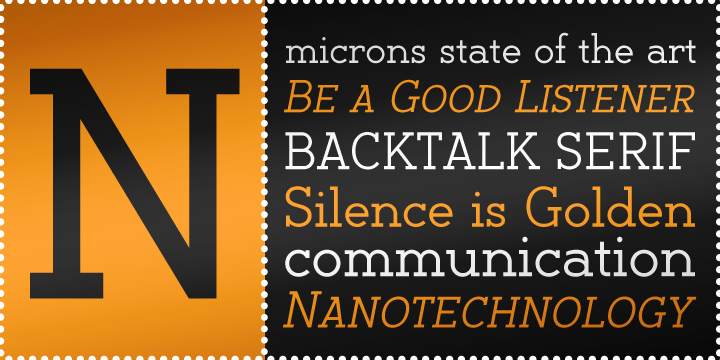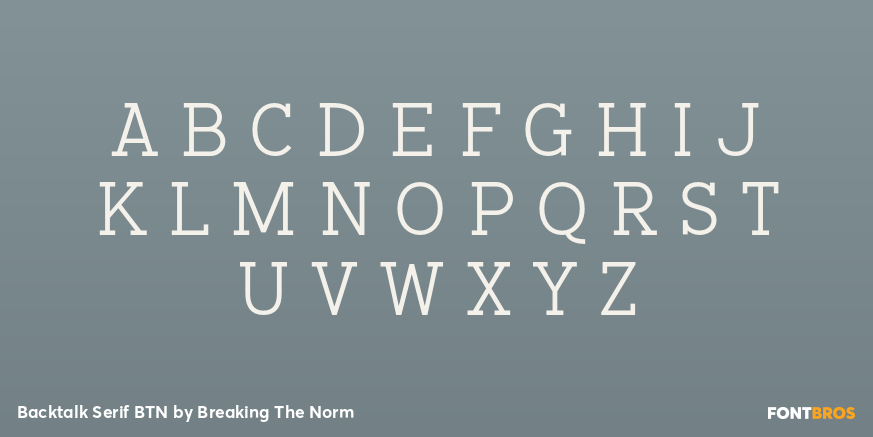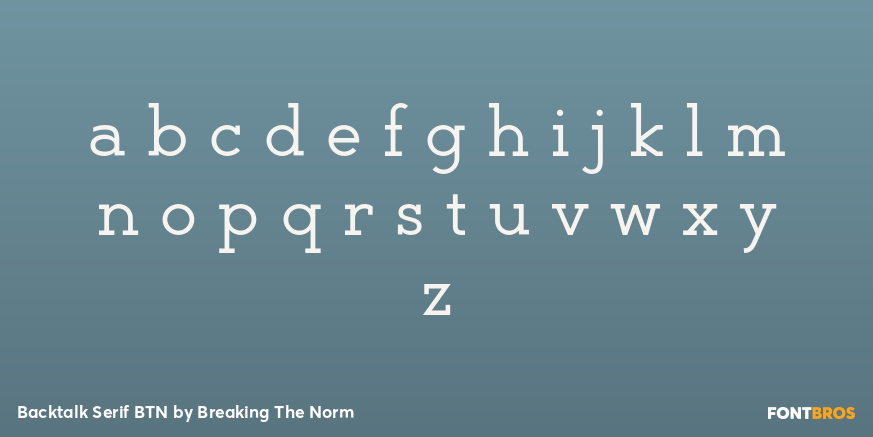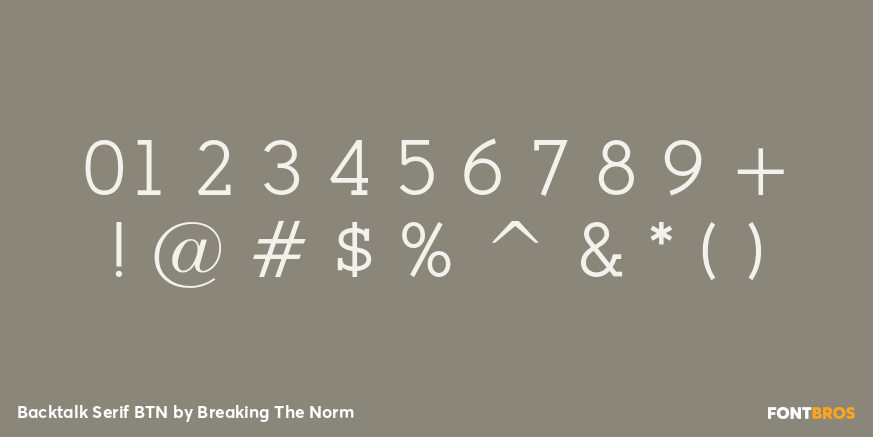
Backtalk Serif BTN
Font Family by Breaking The Norm
Backtalk Serif BTN is a clean geometric serif family designed with clarity, simplicity, and dependable legibility in mind. Blending humanist warmth with geometric structure, it delivers a straightforward, modern tone with just a hint of personality. The result is a serif family that feels honest, polished, and highly usable across a wide range of design needs. Backtalk Serif BTN is well suited for editorial layouts, branding, packaging, advertising, publishing, signage, and business communication where a refined but approachable serif voice is needed. With upright and oblique styles as well as SC companions, the family offers flexibility for creating cohesive typography with a crisp contemporary character.